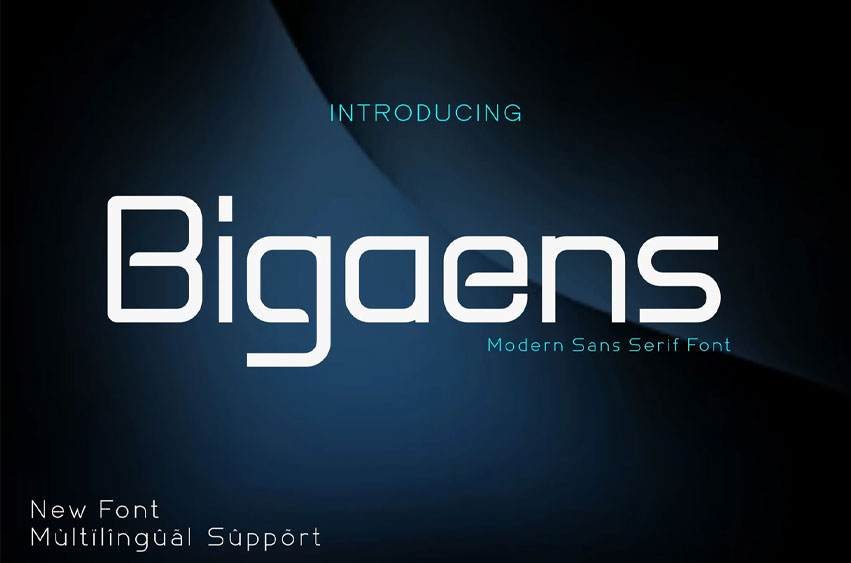
Bigaens Font Introducing our new product Bigaens – Sans Serif Logo Font Corporate.
Bigaens – Sans Serif Logo Font Corporate is and awesome and authentic display font.